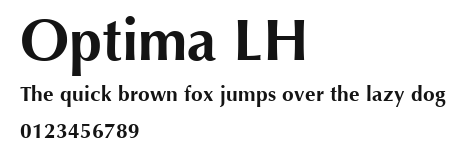
About Optima LH.ttf
Optima LH.ttf is a modern, elegant sans-serif font designed for ultimate readability and visual harmony. Perfect for branding, headlines, web design, and print materials.